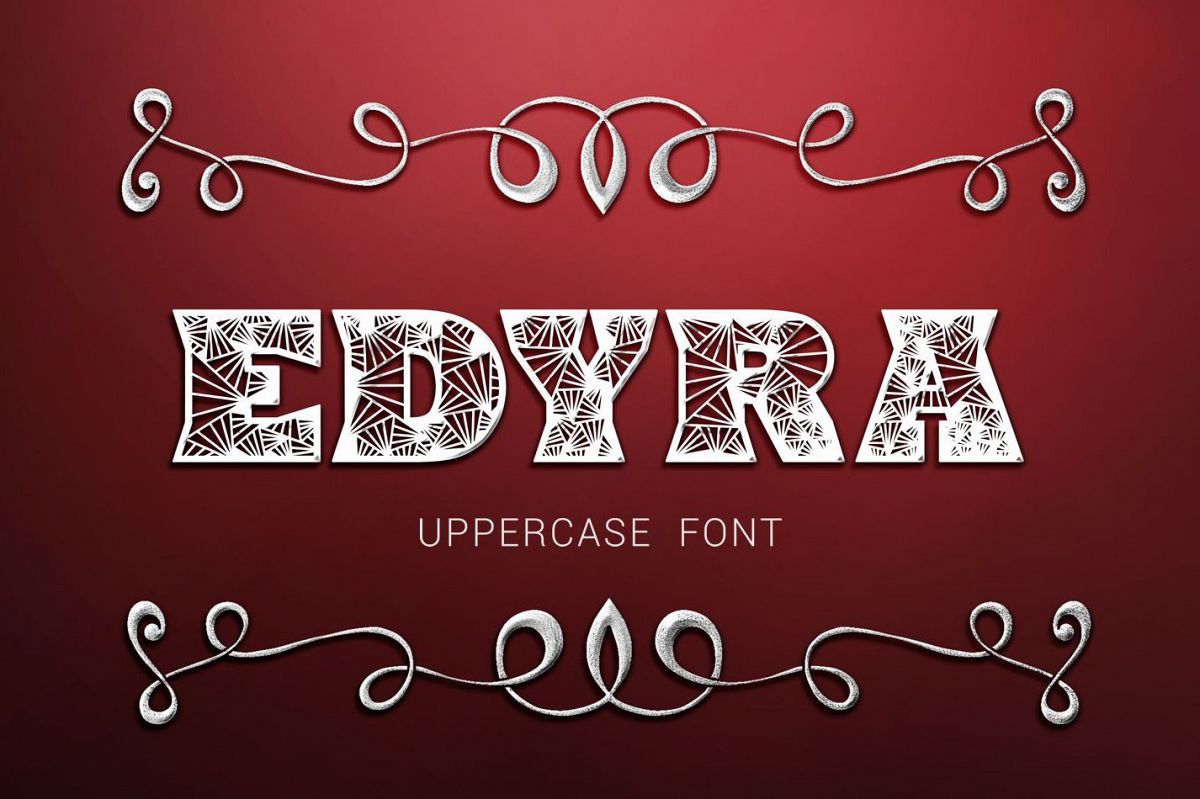
Edyra
Introducing Edyra hand drawn decorative font.
Uppercases, numbers, punctuations as the picture shows.
Edyra is great for many craft area such as paper cut, laser cut, engraving, embroidery etc.